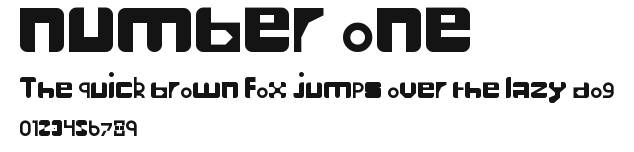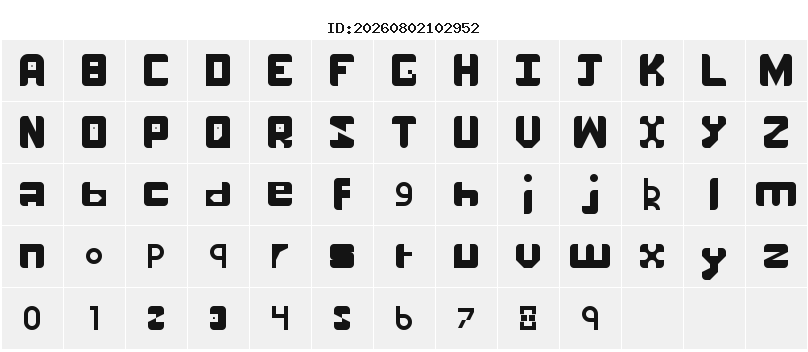
• Font Name: number one
• Designer: mr eel
• Description: “number one” was built with FontStruct
About number one.ttf
number one.ttf is a modern, elegant sans-serif font designed for ultimate readability and visual harmony. Perfect for branding, headlines, web design, and print materials.